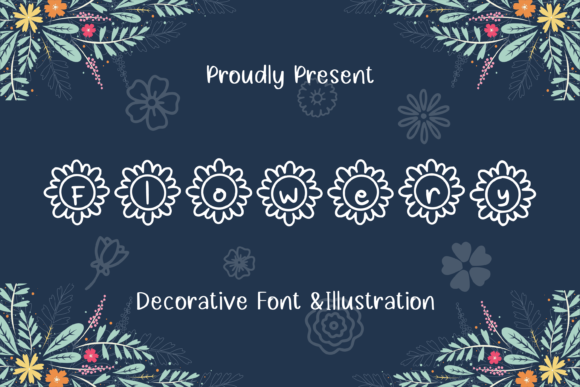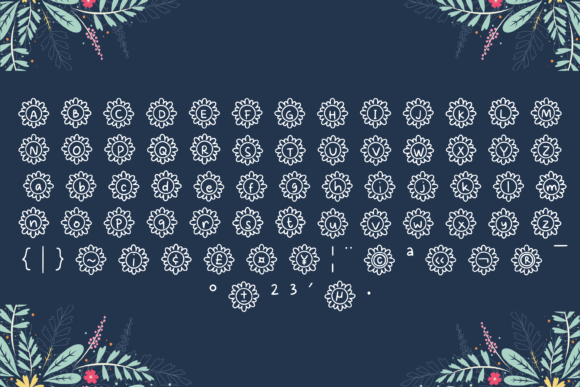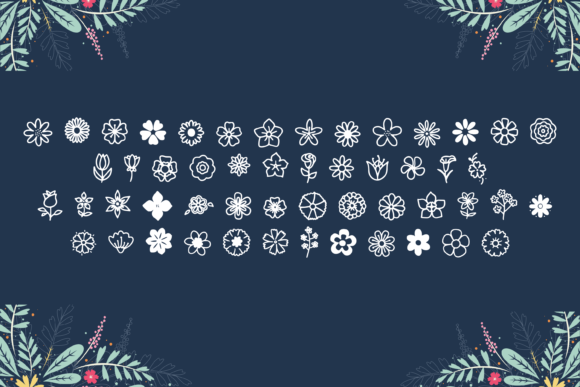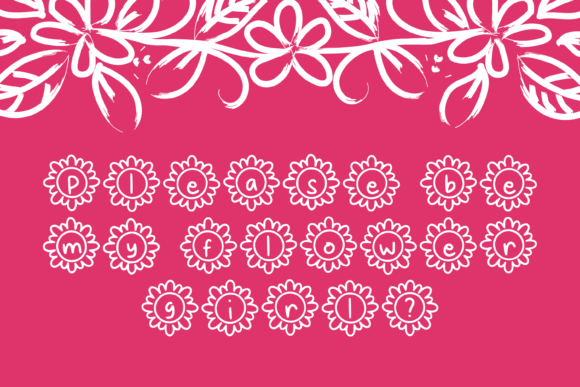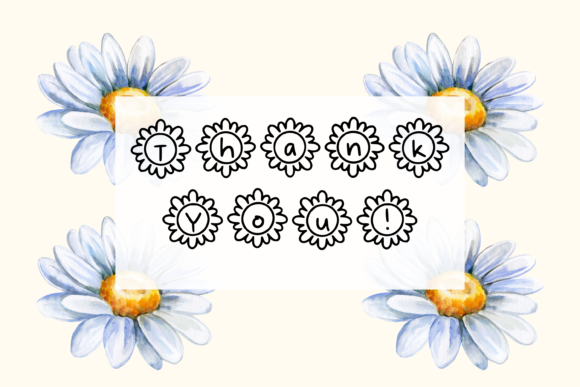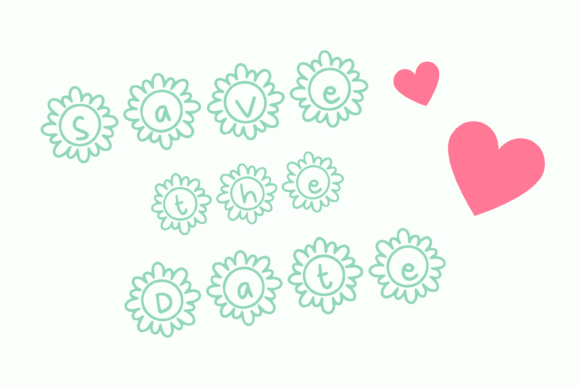
Unleash Your Creativity with the Flowery Font
Have you ever stared at a blank page, waiting for inspiration to strike? For many of us, it’s the perfect moment to break out the creative tools and let our imagination run wild. Whether it’s a new project, a personal passion, or a professional endeavor, the right font can be the spark that sets the creative fire ablaze.
Enter the Flowery Font, a delightful duo of decorative and dingbats fonts that’s sure to add a playful touch to any design. Its adorable style makes it perfect for a wide range of crafty ideas, from letterheads and titles to stationery and labels. With the Flowery Font, designers can add a joyful and whimsical feel to their work, making it a valuable addition to any creative arsenal.
Flowery Font Key Features
- Font Family: Flowery Font is a unique, handwritten font family with a floral and whimsical design.
- Size: Flowery Font comes in 6 font sizes, ranging from 12 to 72 points, to accommodate various design needs.
- Resolution: The font is optimized for high-resolution displays, ensuring crisp and clear text rendering at 300 DPI and above.
- Unique Characteristics: Flowery Font features intricate, hand-drawn designs, swashes, and flourishes, making it perfect for creative and artistic projects.
- Language Support: Flowery Font supports a wide range of languages, including Latin, Cyrillic, and Greek scripts, making it a versatile font choice.
Designer Review: Flowery Font
Overall, I think “Flowery Font” has some great qualities that make it a decent choice for certain designs, but it’s not without its limitations.
- The font’s playful and whimsical feel is perfect for branding and packaging design that targets a younger audience.
- The varied line heights and letterforms create a sense of movement and energy, which can be great for headings and titles.
- The font’s customizability is also a major plus, with plenty of options for adjusting the size, color, and spacing of the text.
- The font can be difficult to read at smaller sizes, especially for body text, due to the intricate details and ornate flourishes.
- The font’s complexity can also make it challenging to pair with other fonts, as it may clash with simpler or more modern designs.
- Finally, the font’s playful feel may not be suitable for all types of designs, such as formal or corporate projects.
In conclusion, “Flowery Font” is a unique and eye-catching choice that can add a touch of personality to designs. However, its limitations should be carefully considered before choosing it for a project. With careful selection and application, it can be a great addition to a designer’s toolkit.
Tips for Getting the Most Out of Flowery Font
Use Flowery Font to add a touch of whimsy and elegance to your designs. Experiment with different font sizes and colors to create a unique effect. Combine Flowery Font with other fonts to create a visually appealing contrast.
Use Flowery Font for:
– Baby shower invitations and decorations
– Floral-themed designs and illustrations
– Romantic and whimsical branding and marketing materials
Alternatives to “Flowery Font” for Designers
Pacifico is a beautiful script font that resembles handwriting. It’s perfect for creating a relaxed, casual atmosphere in designs such as invitation cards, wedding stationery, and social media posts. Compared to Flowery Font, Pacifico has a more elegant and refined feel.
Great Vibes is a modern script font that is ideal for designs that require a touch of sophistication and elegance. It’s suitable for use in wedding invitations, social media graphics, and branding materials. Unlike Flowery Font, Great Vibes has a more contemporary feel and is easier to read.
Alex Brush is a elegant script font that is perfect for designs that require a touch of luxury and sophistication. It’s suitable for use in wedding invitations, luxury branding materials, and high-end packaging designs. Compared to Flowery Font, Alex Brush has a more refined and polished feel.
Carolyna Pro is a modern script font that is ideal for designs that require a touch of elegance and sophistication. It’s suitable for use in wedding invitations, social media graphics, and branding materials. Unlike Flowery Font, Carolyna Pro has a more contemporary feel and is highly legible.